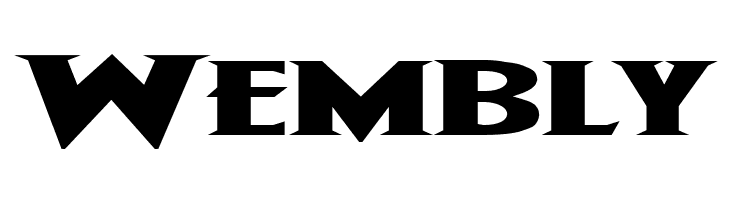
Terminator Dark Fate Font
- Font: Terminator Dark Fate
( Fonts by Iconian Fonts - Daniel Zadorozny )
A bold, angular font with a gothic-inspired style, perfect for dramatic headlines.